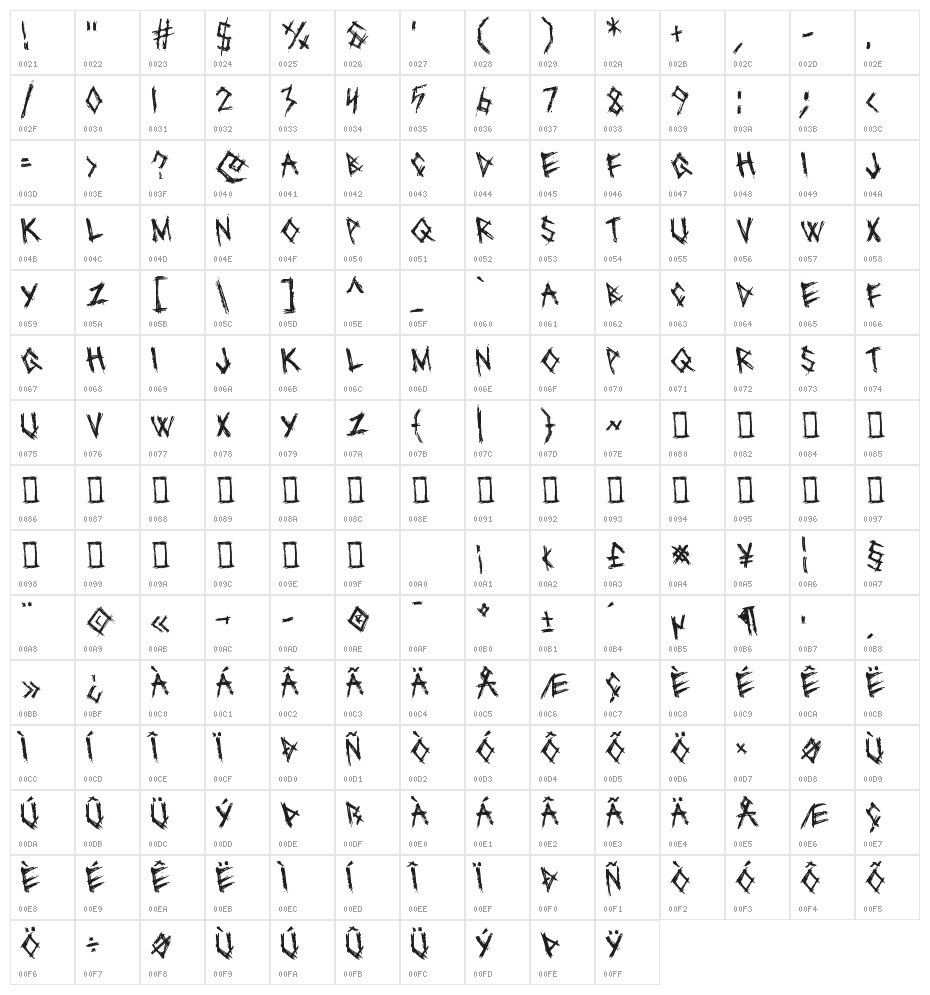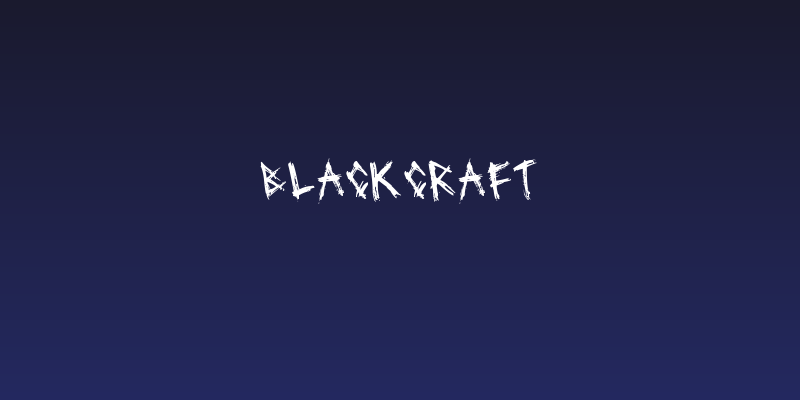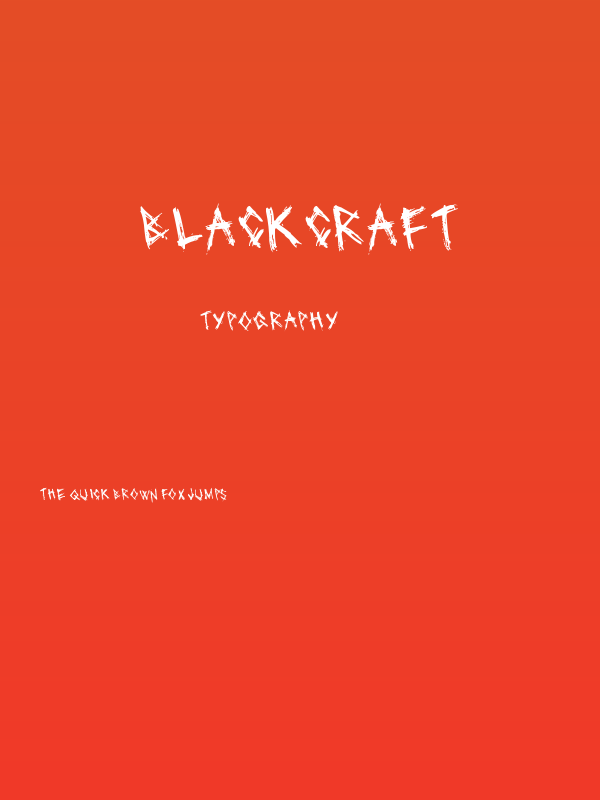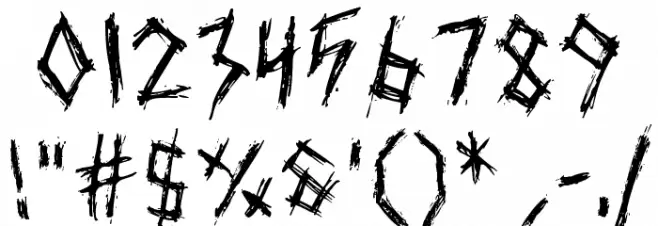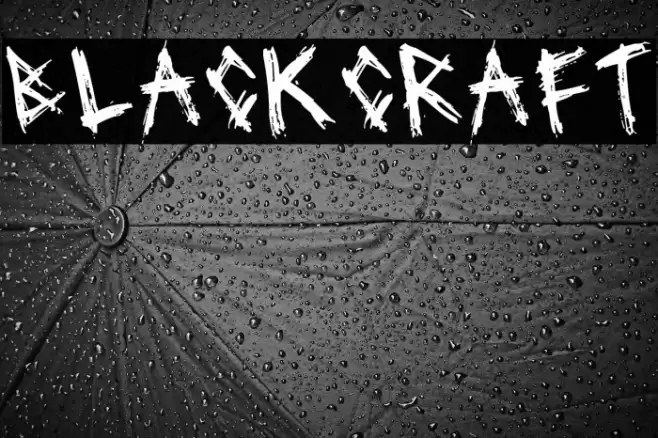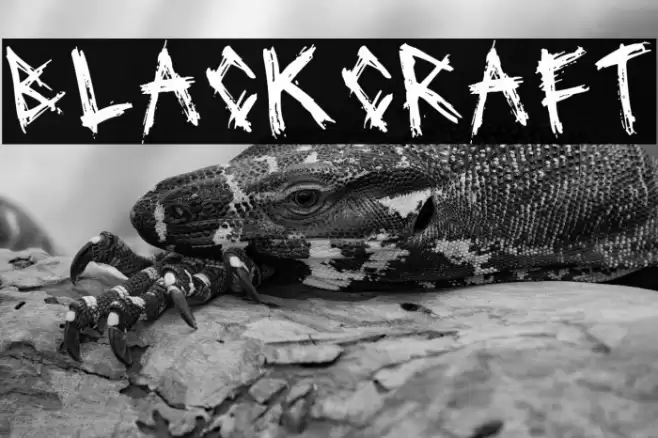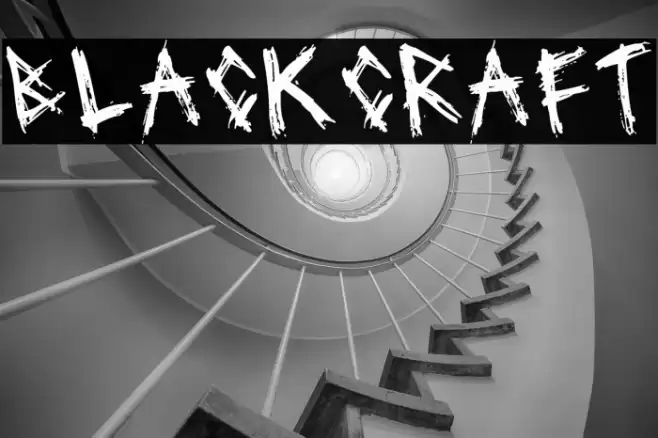
Blackcraft Font
Blackcraft Description
This font features a rugged, distressed appearance with a hand-drawn aesthetic. The characters are irregular and jagged, giving off a rebellious and edgy vibe. The strokes are uneven, with a rough texture that suggests a sense of chaos and raw energy. The uppercase and lowercase letters maintain a consistent style, while the numbers and special characters complement the overall design. This font is ideal for projects that require a bold, unconventional look.
| Overall Style | Edgy, Rebellious, Raw |
| Proposed Projects | Perfect for album covers, posters, horror-themed designs, and alternative fashion branding. |